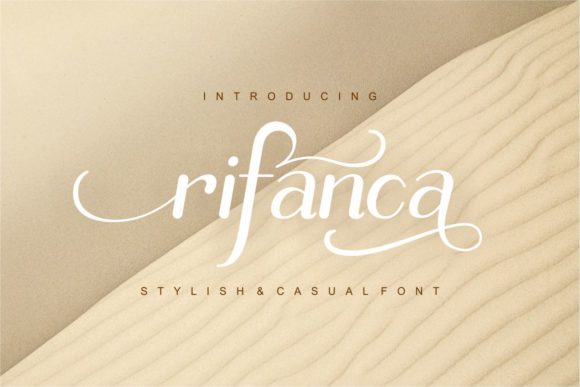
Introducing Rifanca Font - A Script of Elegance and Grace, designed by the talented yunitaecy. Immerse yourself in a world of beauty and sophistication as you explore this exquisite handwritten font, crafted to evoke a sense of timeless elegance in your creative endeavors.
Unleash your imagination and let Rifanca's delicate strokes dance across your designs, adding a touch of refinement and charm to every project. Its beautifully balanced characters form a harmonious symphony, effortlessly complementing a vast array of aesthetics.
With Rifanca, your invitations will transform into masterpieces, imbued with a sense of occasion and heartfelt emotion. Imagine your words taking flight, carried by Rifanca's graceful curves, leaving an unforgettable impression on the recipients.
This font is not just a tool; it's an extension of your creativity, allowing you to express yourself with unparalleled elegance. Its varying baseline, smooth lines, gorgeous glyphs, and stunning alternates provide endless possibilities for exploration and customization.
As a PUA-encoded font, Rifanca grants you effortless access to a treasure trove of glyphs and swashes, unlocking a world of typographic possibilities. Let your imagination soar as you discover new and captivating ways to bring your designs to life.
With Rifanca, your creations will captivate and enchant, leaving a lasting impression on all who encounter them. Embrace the magic of this font and elevate your designs to new heights of artistry.